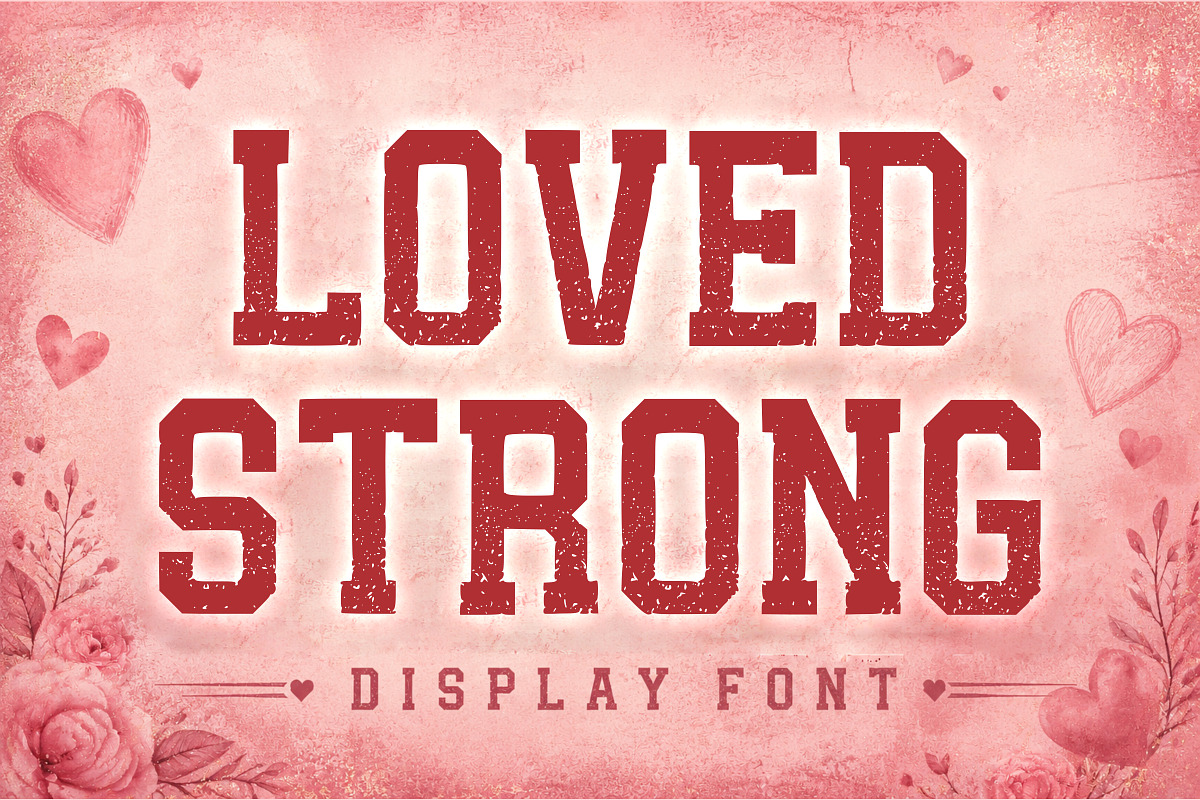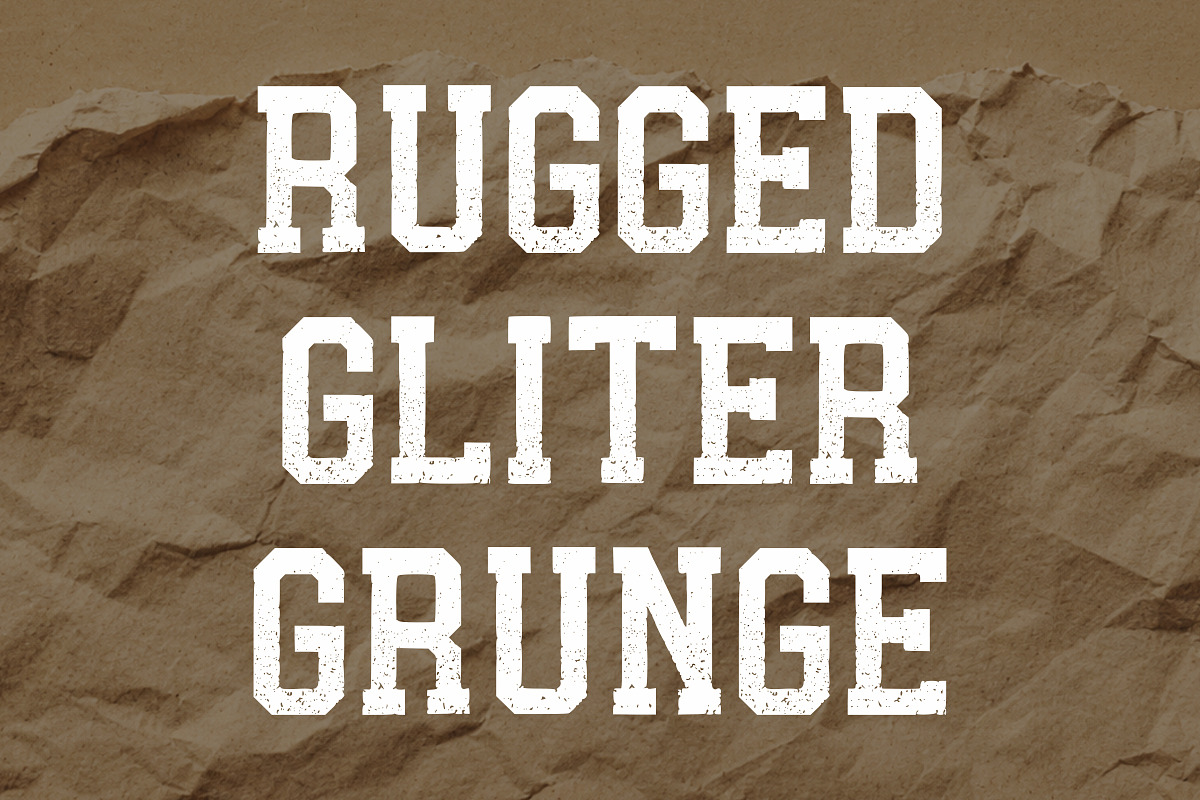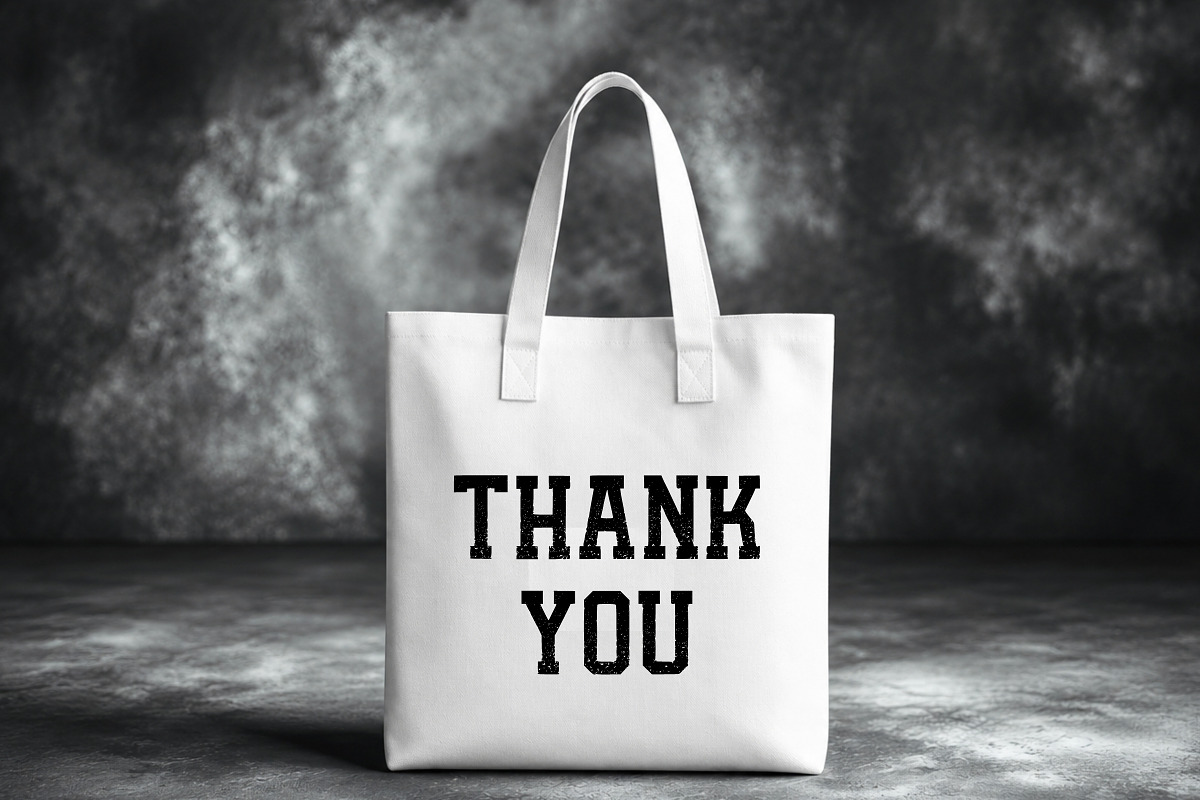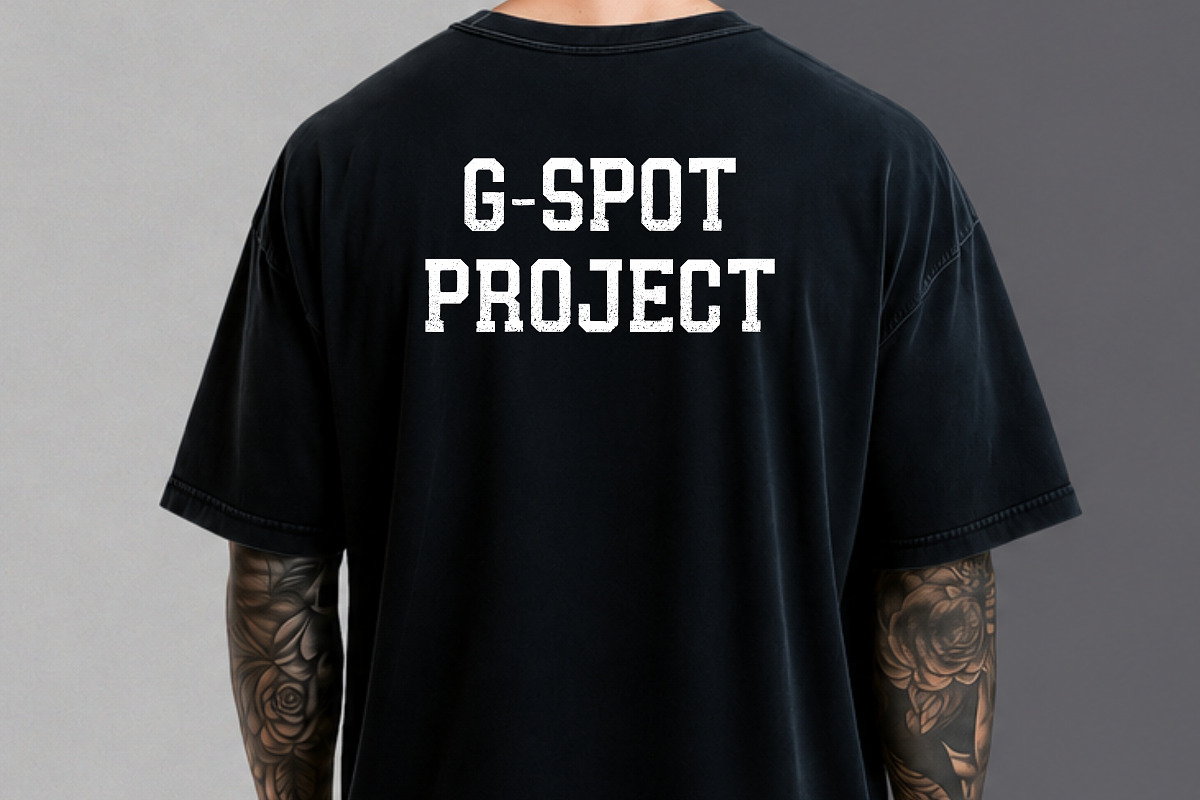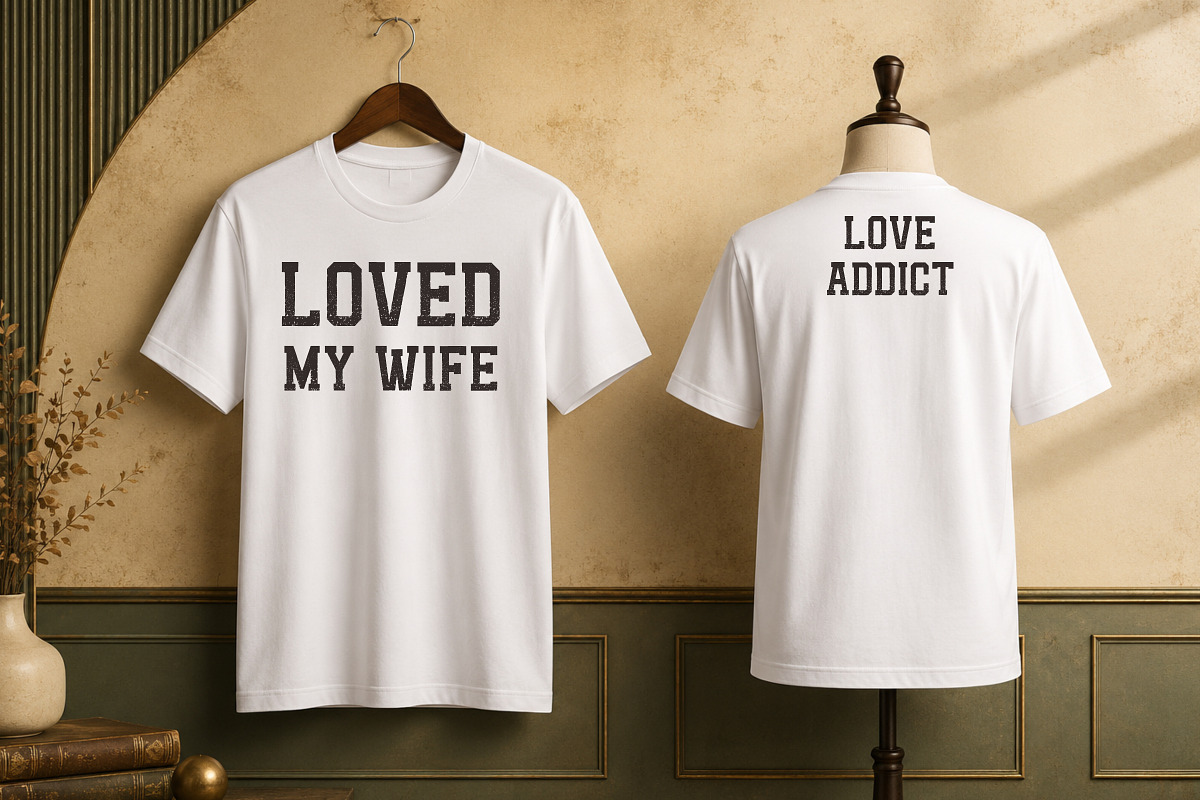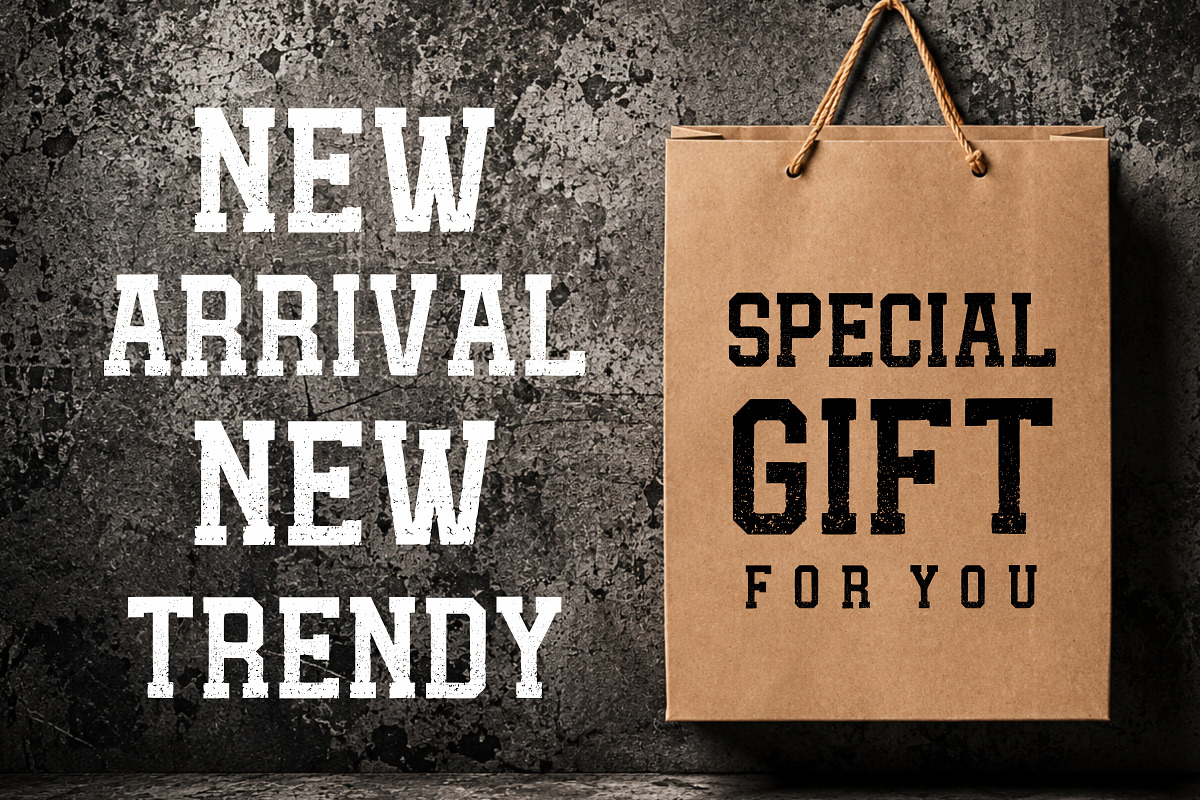
Loved Strong
Loved Strong is a bold varsity display font crafted for designers who need strong, attention-grabbing typography. Featuring classic collegiate letterforms enhanced with a vintage distressed texture, this font delivers an authentic sports-inspired aesthetic ideal for modern and retro projects alike.
Uppercase Letters